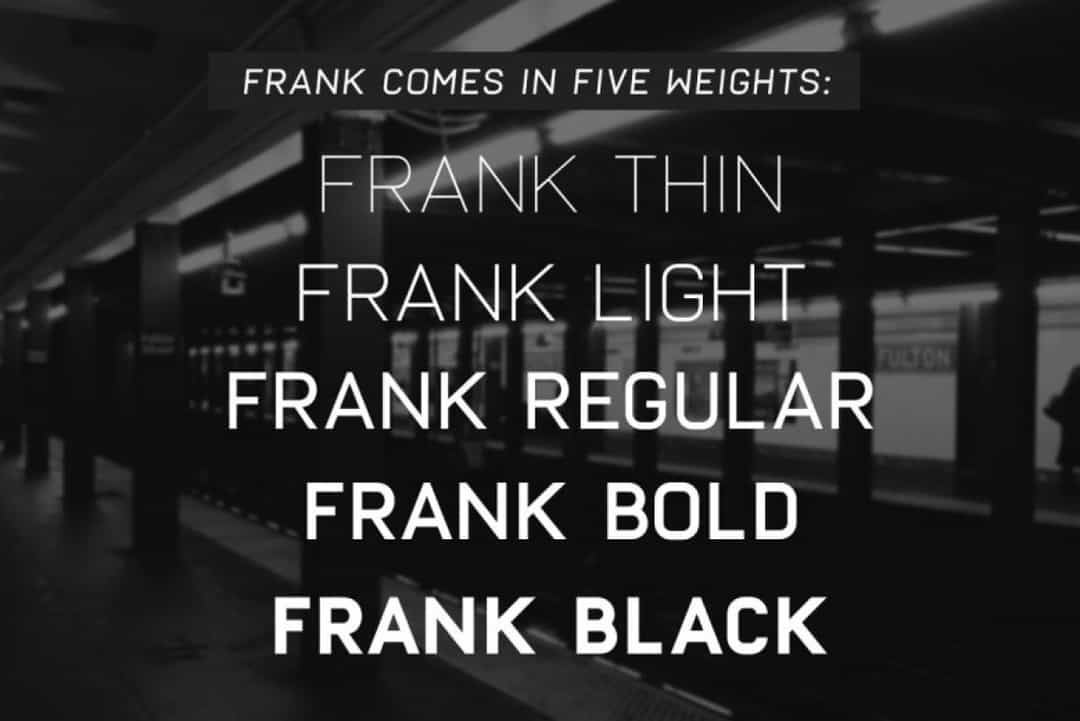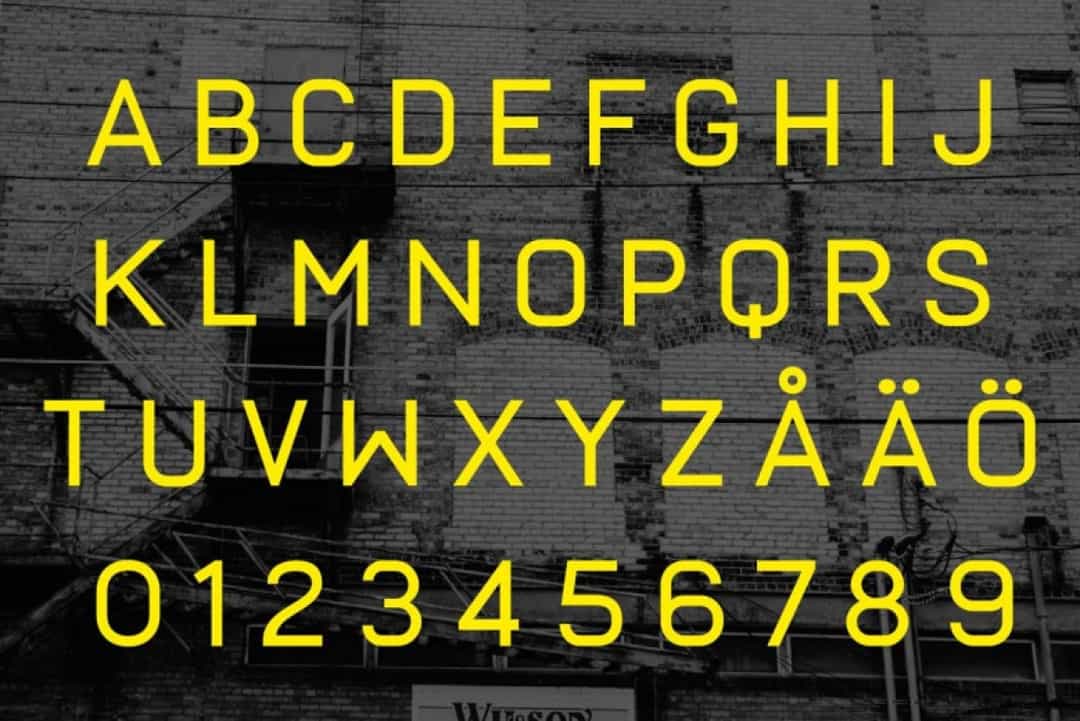
Frank is an elegant sans serif font family inspired by classic DIN Eurostile, DIN and Futura fonts – making it perfect for logos, branding projects, design work, clothing packaging magazines as headers or simply text overlays on any background image.